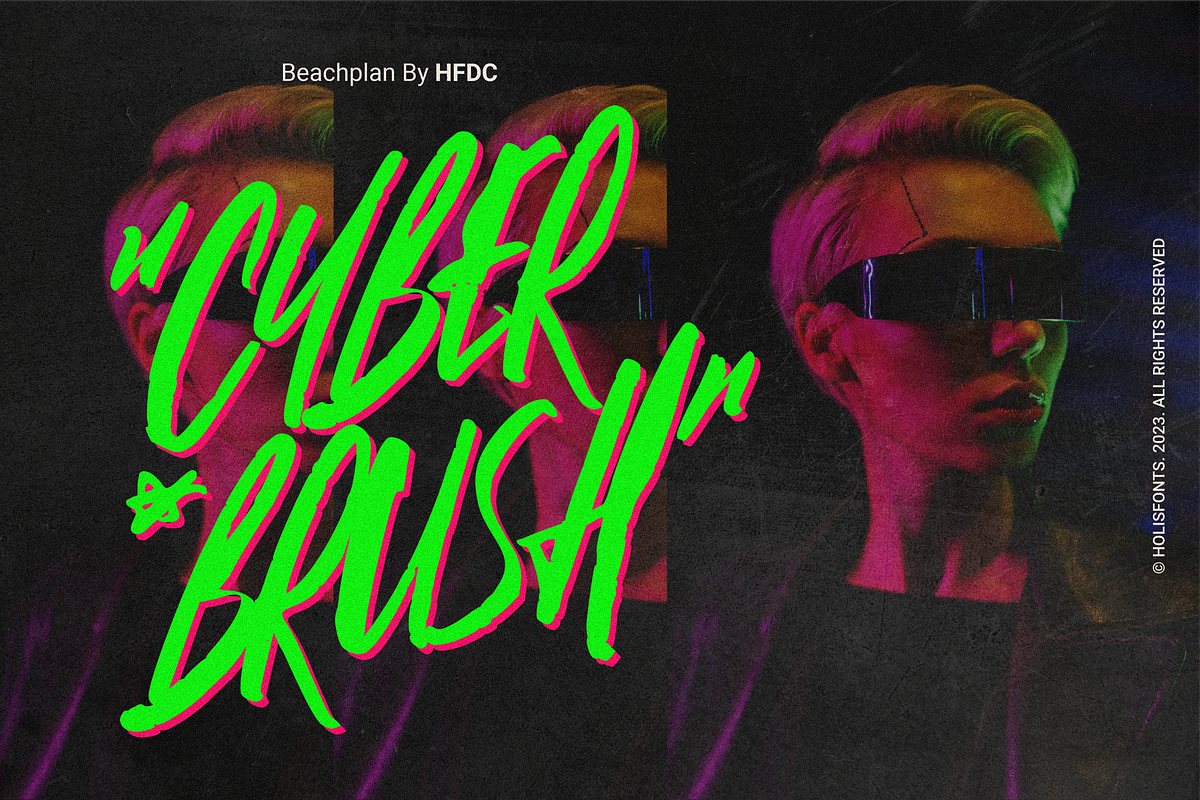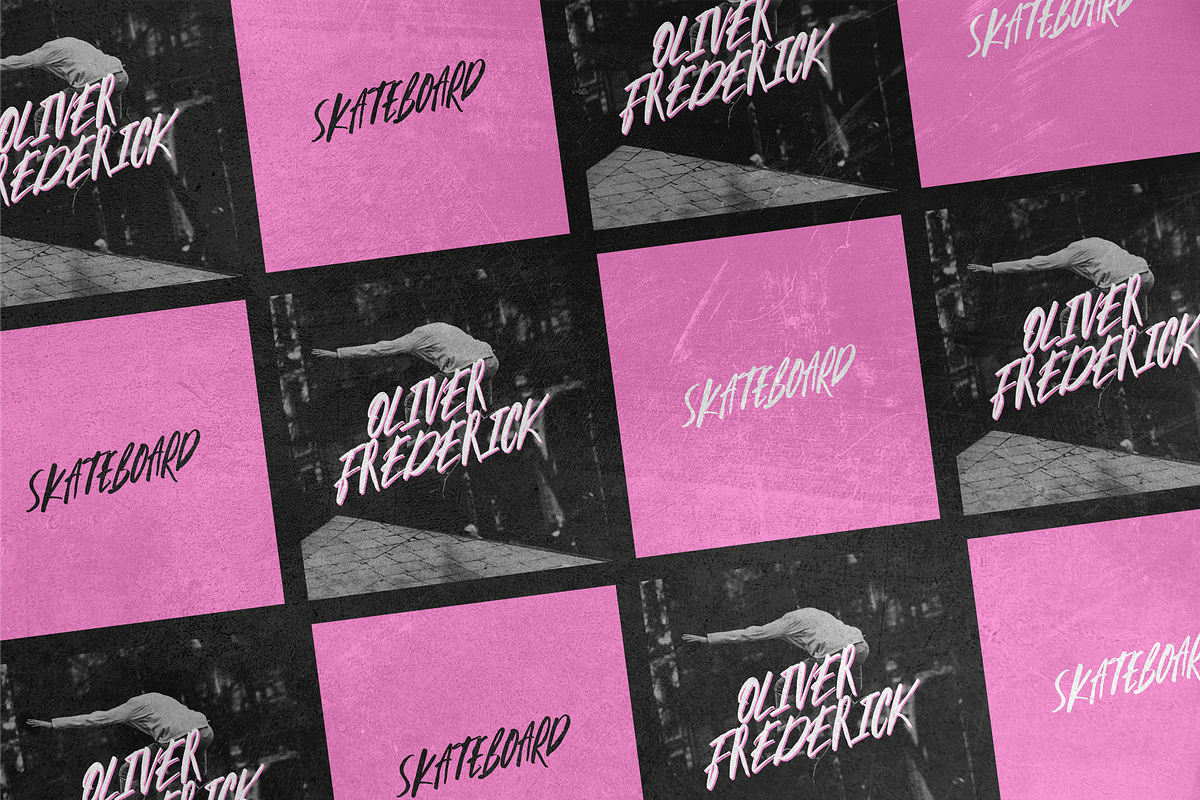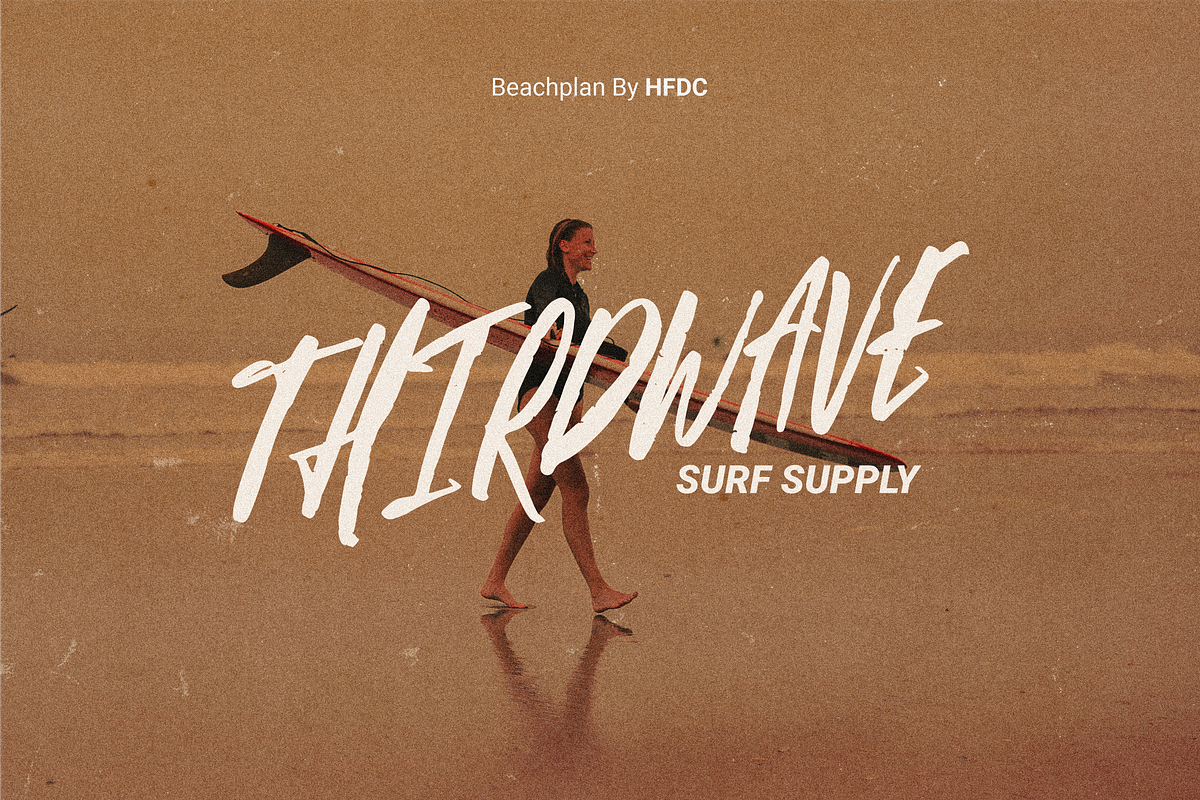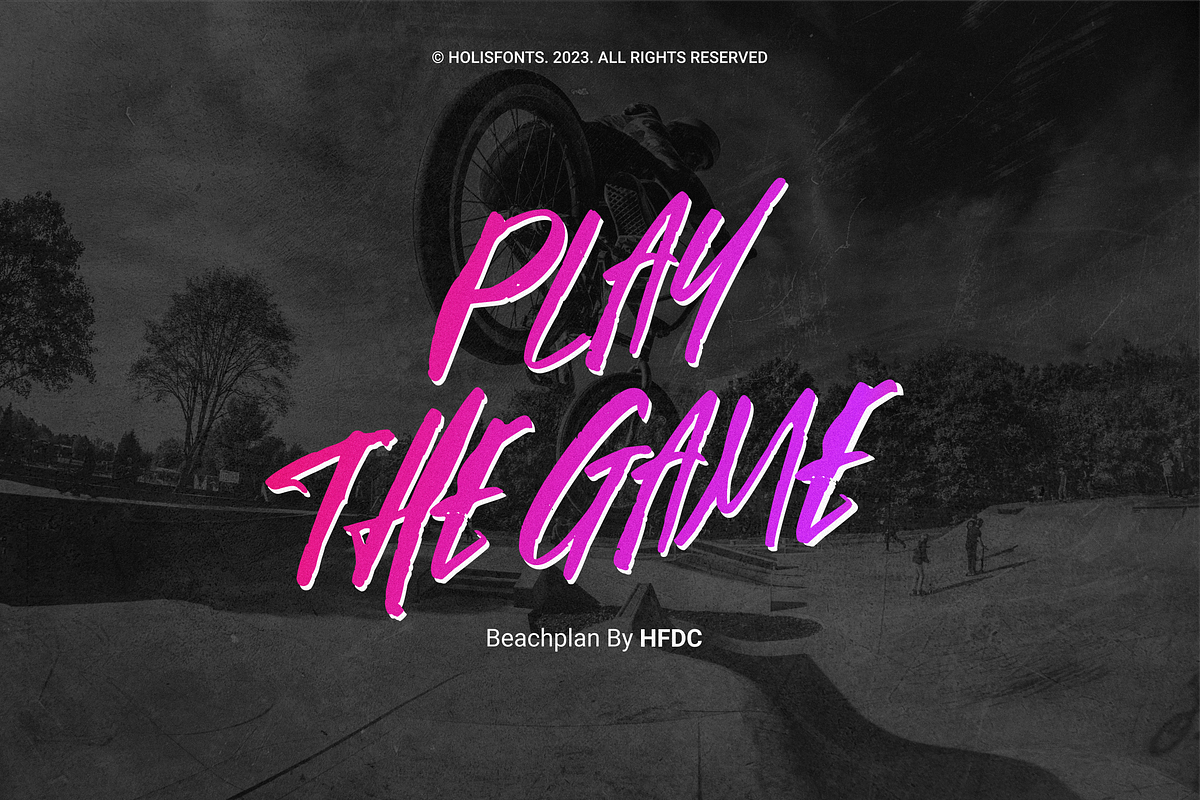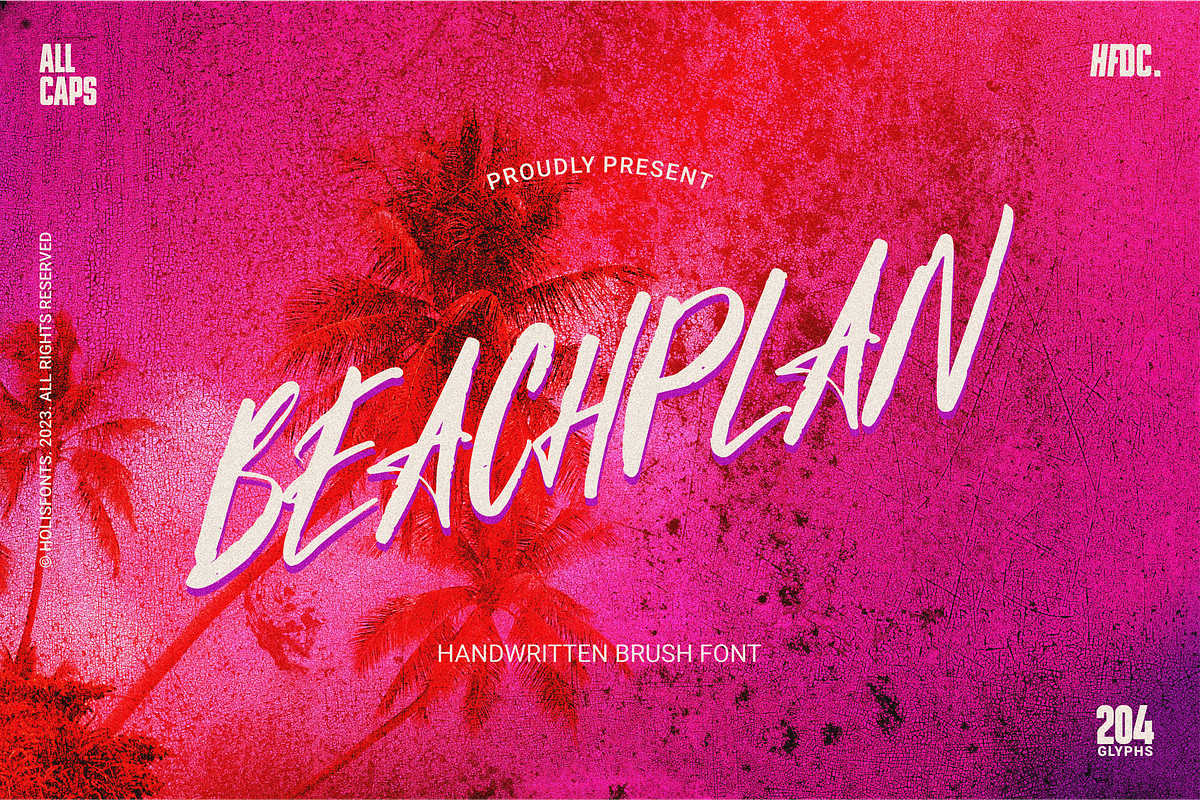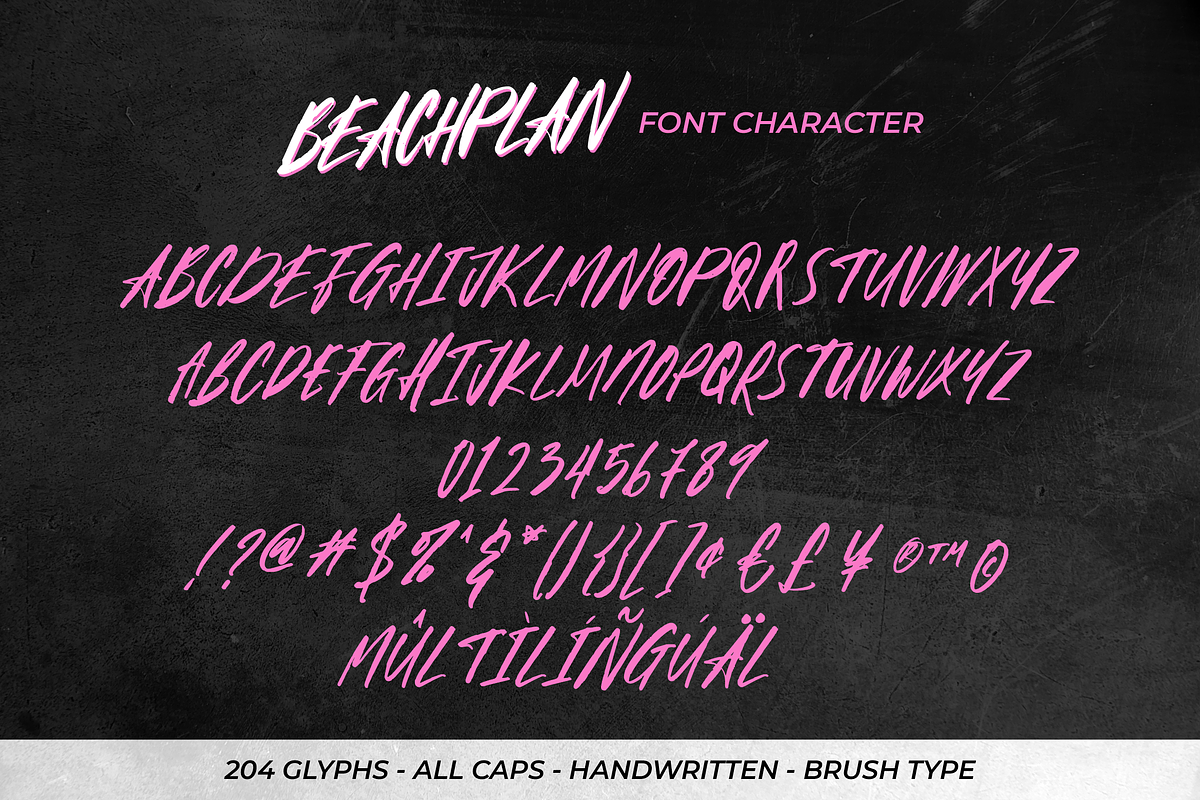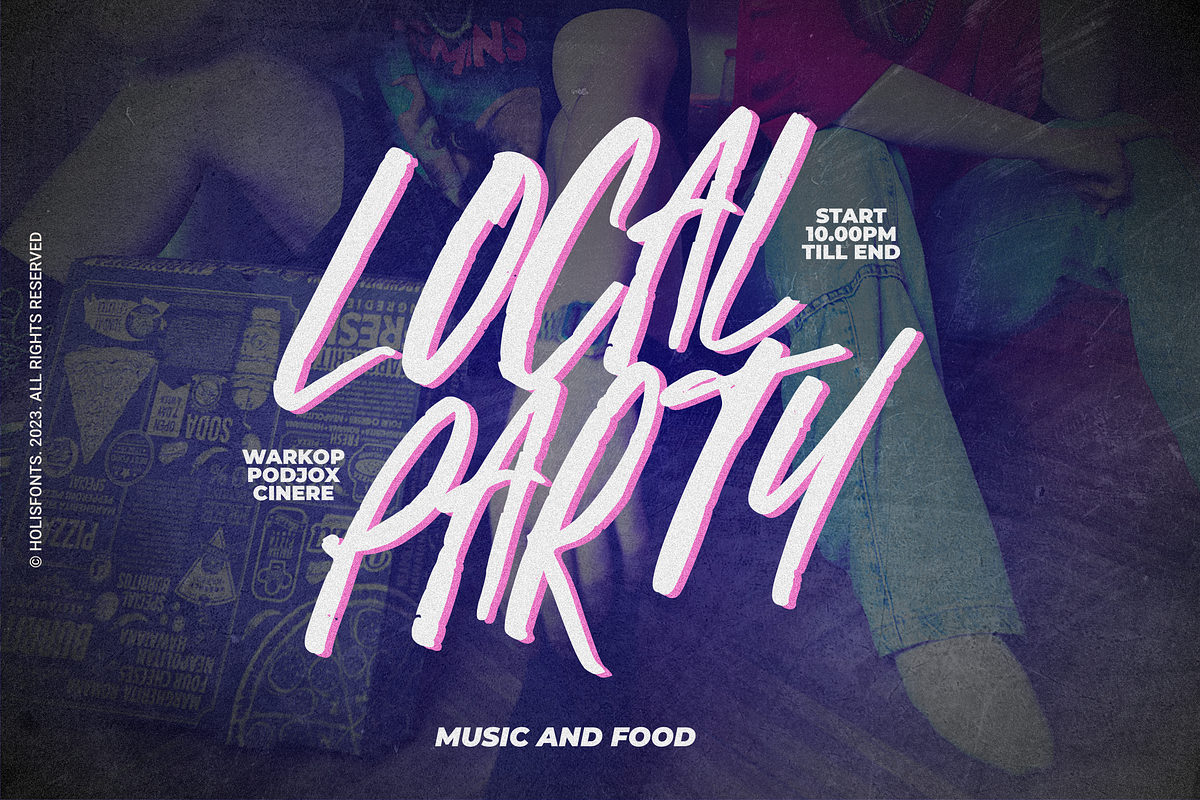
Beachplan Script
Beachplan is a natural script font, created with small markers, with all caps font character. Suitable for design on music album covers, posters, flyers, and others.
- All Caps
- Numeral
- Punctuation and Symbol